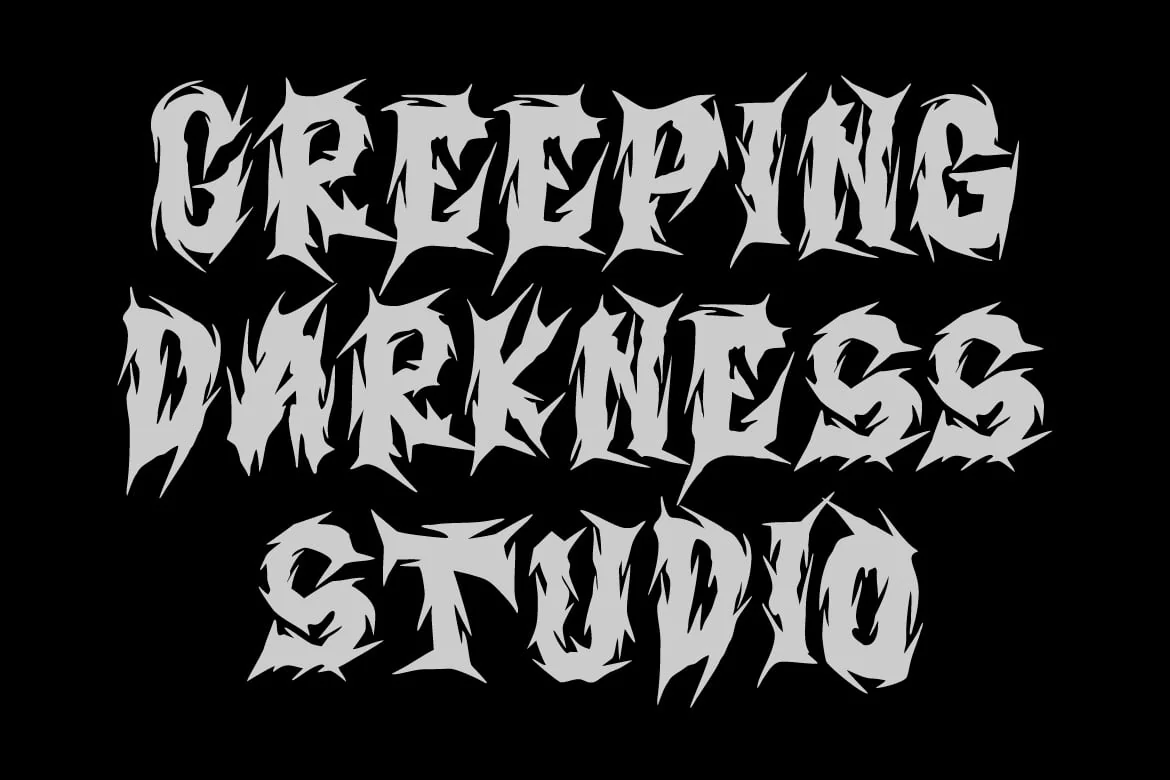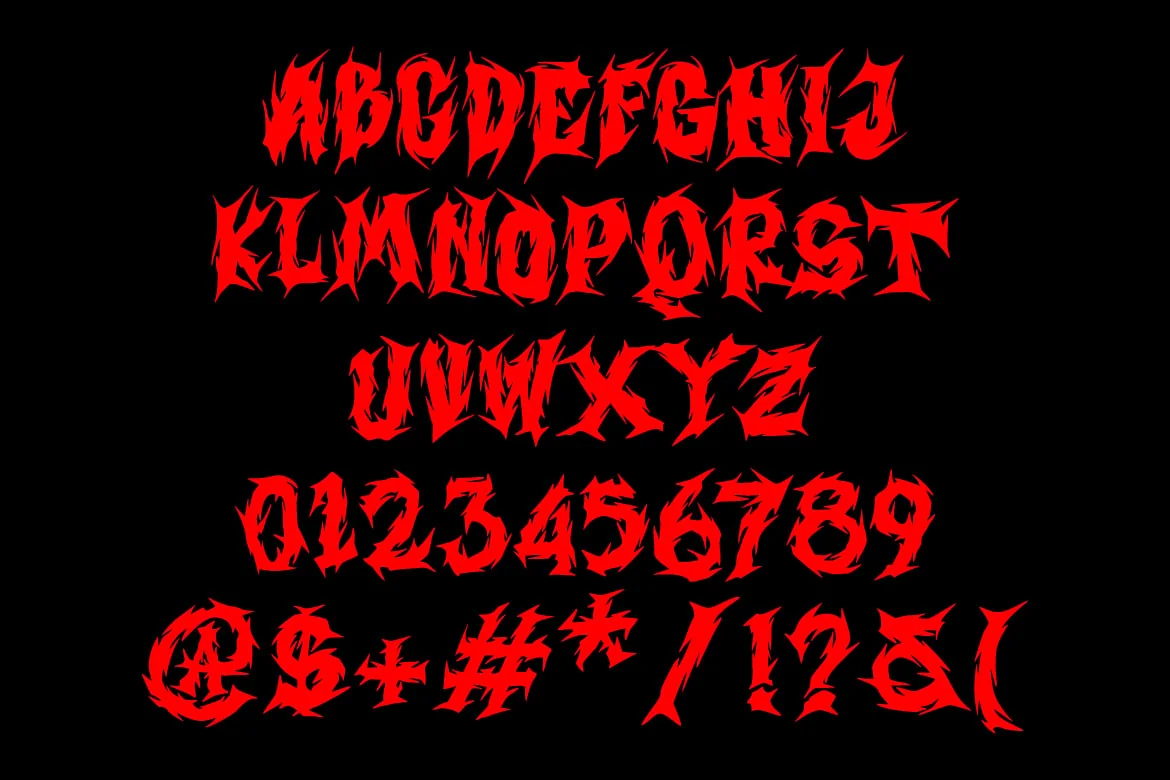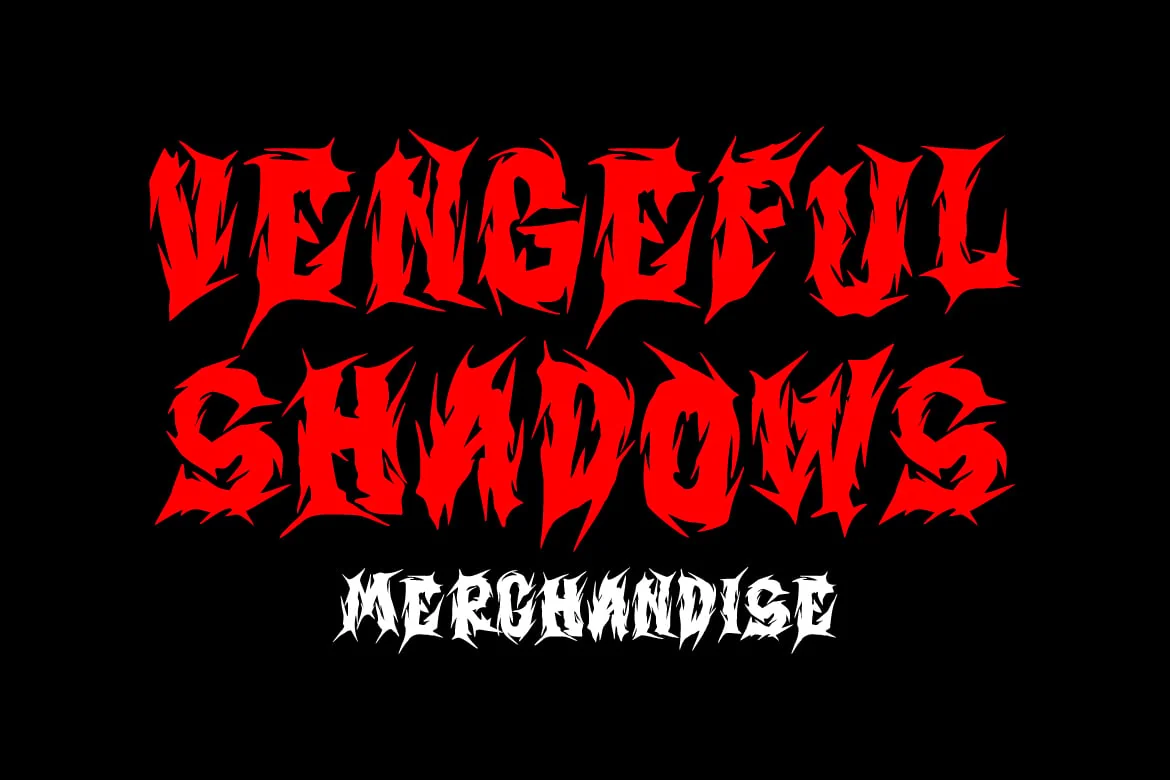
Trash Gore – Brutal Font
Trash Gore by Trash Fonts
Introducing ‘Trash Gore’—a font that unleashes unbridled ferocity with every brutal stroke. Its extreme and aggressive design epitomizes the raw power of metal, leaving an indelible mark. With relentlessly bold characters, ‘Trash Gore’ is a visceral statement, commanding attention and embodying the brutal intensity of your music. Let ‘Trash Gore’ be the unapologetically fierce identity that sets your metal project apart.